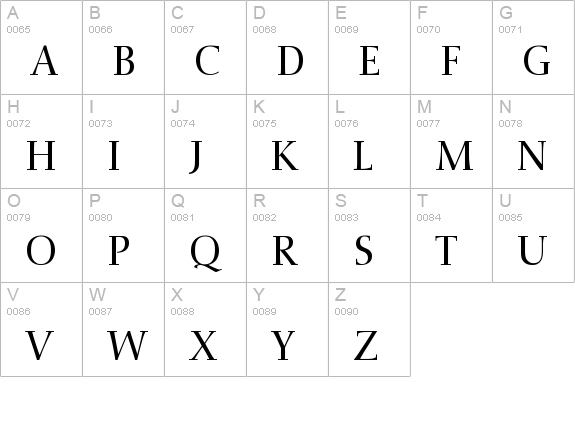
Conquista SSi Font Details
Conquista SSi font is a bold and stylish typeface that exudes strength and sophistication. With its sharp edges and modern look, this font is perfect for creating eye-catching titles and headlines. The Conquista SSi font is versatile and can be used for a wide range of design projects, from posters to logos to branding materials. The best part? Conquista SSi font is available for free download at FontsMarket.com. This means you can start using this stunning font in your projects without having to spend a dime. Don't miss out on the opportunity to add this striking font to your collection and elevate your designs to the next level. Download Conquista SSi font today and unleash your creativity!